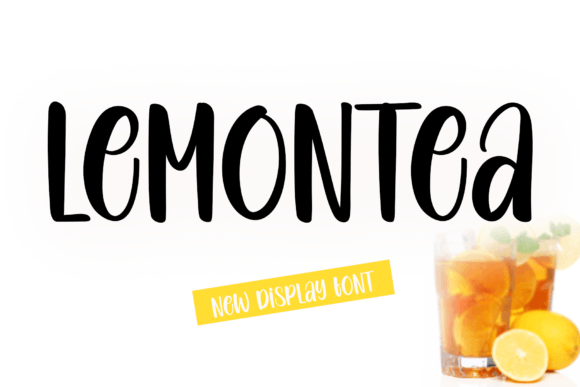
Welcome to the world of Lemontea Font, where elegance meets versatility! This captivating display font, meticulously crafted by the masterminds at Black Line, is not just a collection of glyphs but a symphony of emotions, ready to dance across your designs. With its enchanting curves and playful strokes, Lemontea is the perfect choice for designers seeking to infuse their creations with a touch of romance and whimsy.
Imagine your greeting cards adorned with the graceful lines of Lemontea, each letter carrying a heartfelt message like a whisper from the heart. Envision your headlines commanding attention, their bold presence amplified by Lemontea's alluring curves. Every poster, every invitation, every piece of marketing collateral you create will blossom into a visual masterpiece, captivating audiences with its enchanting allure.
Lemontea is more than just a font; it's an expression of your creativity, a reflection of your unique style. Its versatility knows no bounds, adapting effortlessly to a myriad of design projects. Whether you're crafting a delicate wedding invitation or a vibrant social media campaign, Lemontea will seamlessly elevate your vision, transforming it into an unforgettable experience.
So, dear designer, embark on this enchanting journey with Lemontea Font. Let its romantic charm inspire you, its versatility empower you, and its captivating beauty captivate your audience. Discover the endless possibilities that await you with Lemontea, and elevate your designs to extraordinary heights!